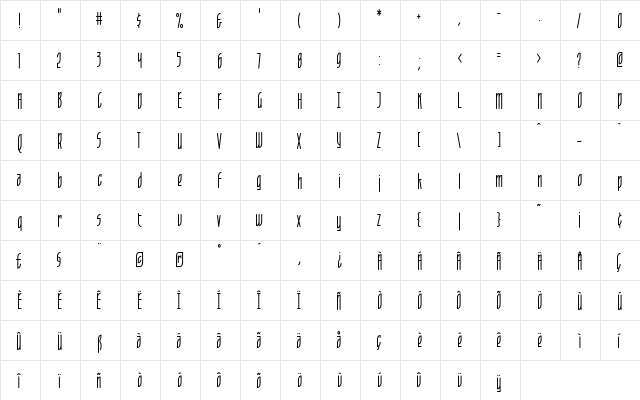
LeafletLight Regular
Design Context for LeafletLight Typeface
LeafletLight offers clean, dependable letterforms without strong stylistic allegiance, making it a practical choice for designers who need flexibility. Its slender proportions lend an understated elegance to any composition.